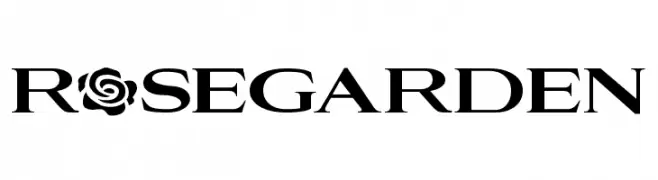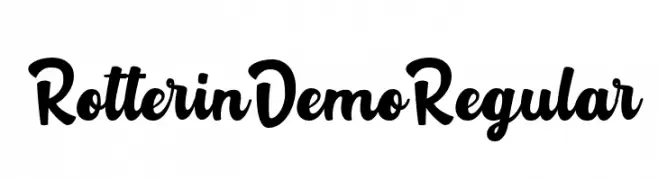
A bold, expressive script font with fluid, cursive strokes.
A bold, brush-style font with dynamic, handcrafted strokes.
A romantic, cursive script with elegant, flowing lines.
A modern, high-contrast font with geometric shapes and clean lines.
A bold, elegant serif font with high contrast and refined details.
An elegant script font with intricate loops and swirls, reminiscent of calligraphic handwriting.
A bold, expressive script font with a flowing, handwritten style.
A bold, playful font with a heavy, extruded style and rounded edges.
A playful, rounded font with a bold, bubbly appearance.
A modern, geometric sans-serif font with balanced proportions.